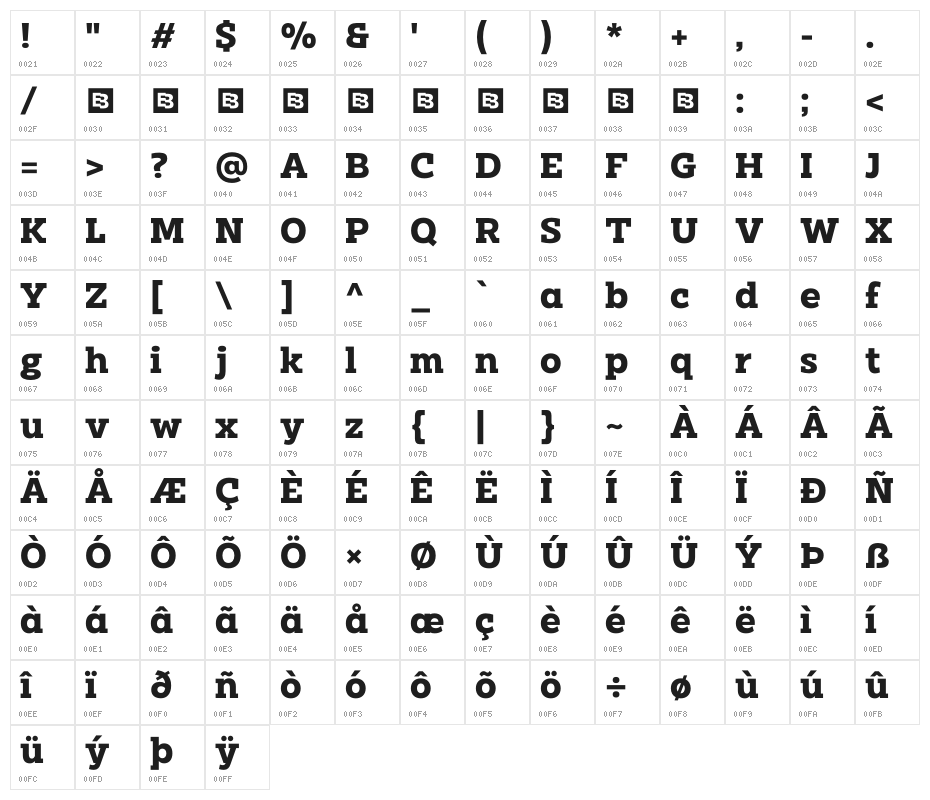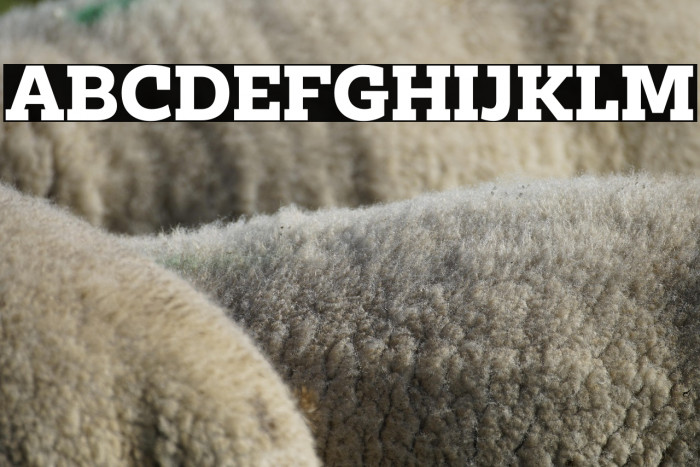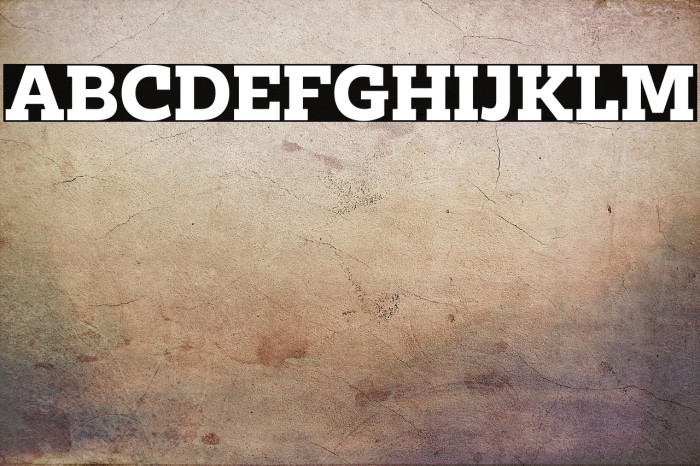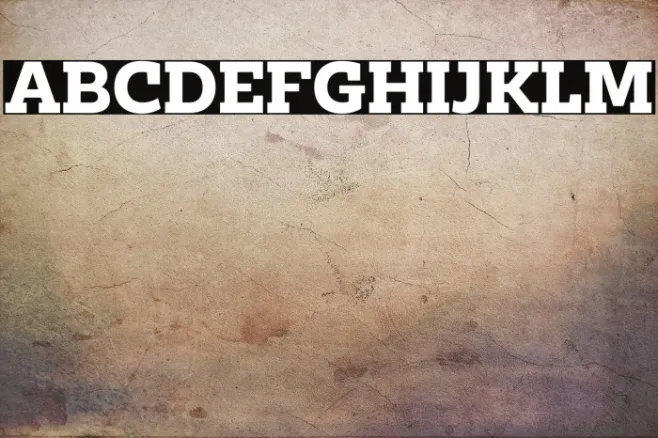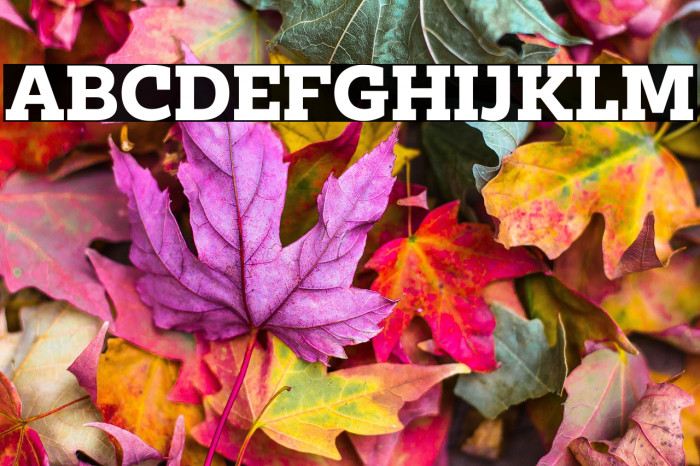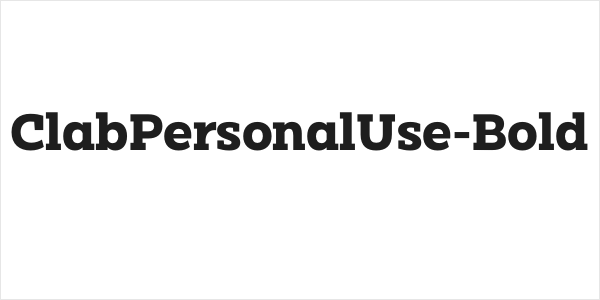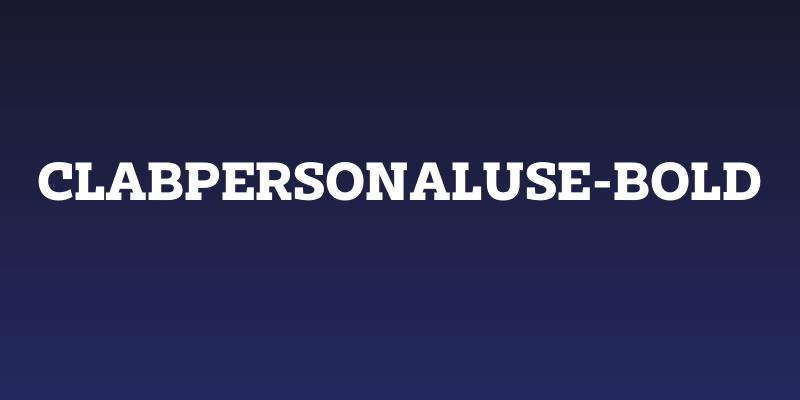
ClabPersonalUse-Bold Font
ClabPersonalUse-Bold Description
This font features bold, strong characters with a slab serif style, offering a robust and impactful appearance. The uppercase letters are particularly striking, with thick strokes and pronounced serifs that convey a sense of authority and confidence. The lowercase letters maintain the same boldness, ensuring consistency across different text sizes. The numbers and special characters are equally bold, making them stand out effectively. This font's design is ideal for creating a commanding presence in any design project, with its high contrast and solid structure.